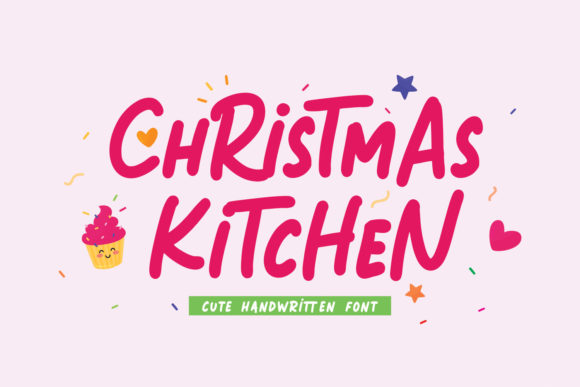
Merry and bright! Get ready to bake up some festive cheer with the Christmas Kitchen Font. This charming and playful display font is perfect for adding a touch of holiday magic to your creative projects.
Imagine your Christmas cards and invitations adorned with the whimsical characters of Christmas Kitchen. Each letter dances and twirls like a sugarplum fairy, creating a sense of joy and wonder that will warm the hearts of your loved ones.
With Christmas Kitchen, you can easily create enchanting designs for your holiday crafts and decorations. From personalized ornaments to festive gift tags, this font will add a touch of handmade charm to all your creations.
Christmas Kitchen is not just for the holidays. Its versatility extends beyond the Christmas season, making it a perfect choice for branding, logos, and other creative projects. Its playful and captivating style will make your designs stand out from the crowd.